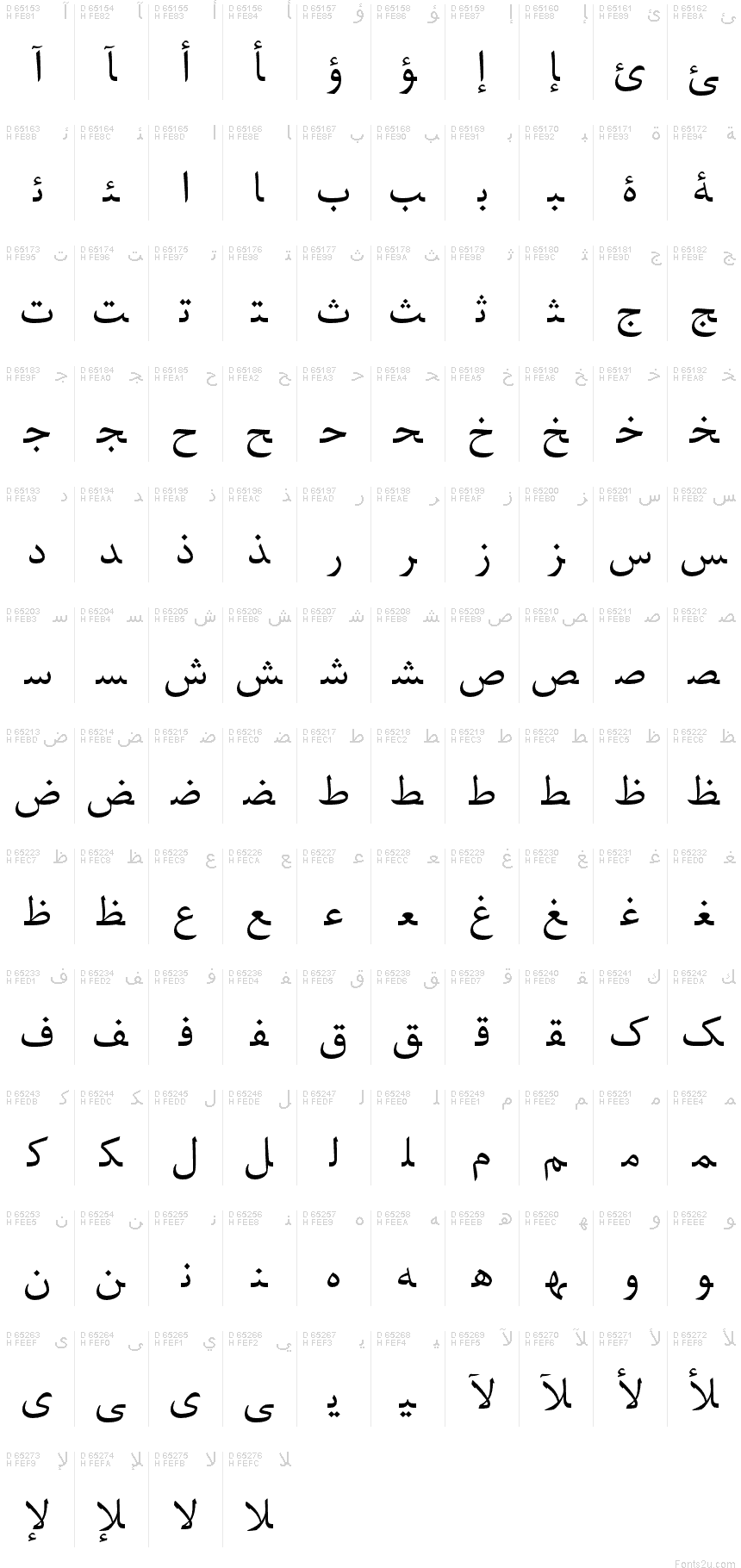
Nazanin by Borna Rayaneh is a free Arabic typeface with a poised, traditional bearing. Its flowing strokes change weight gently, giving the letters a measured cadence. Compact joins and rounded forms keep the writing cohesive.
Literary and cultural subjects suit it particularly well in books and magazines. It also fits poetry programs and heritage event posters, where the restrained drawing supports serious material. The lettering can also become an ornamental border or calligraphic illustration.